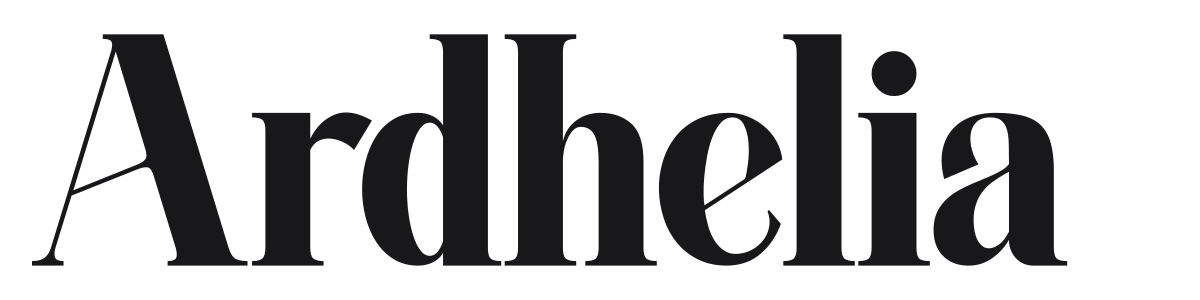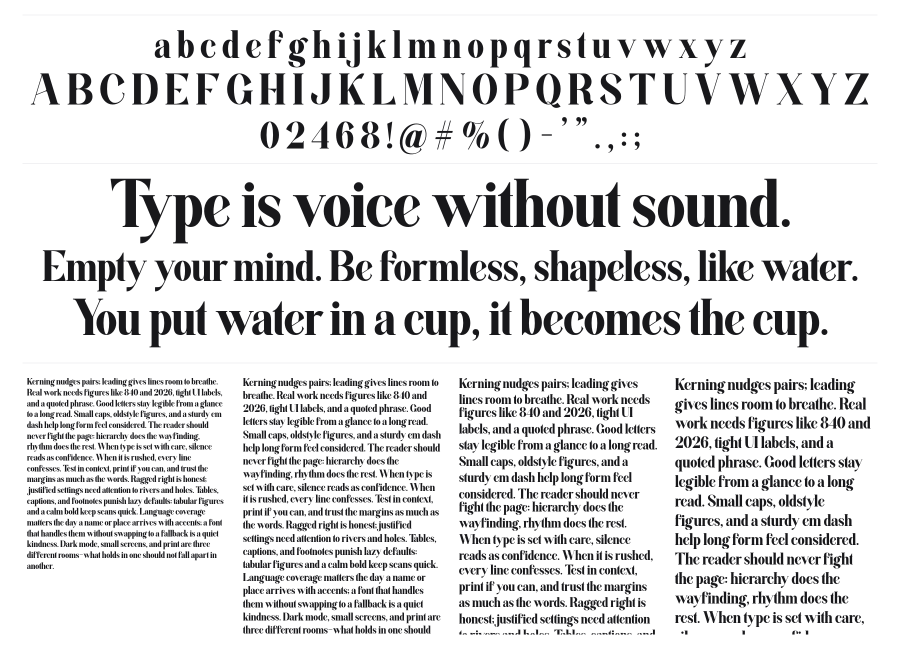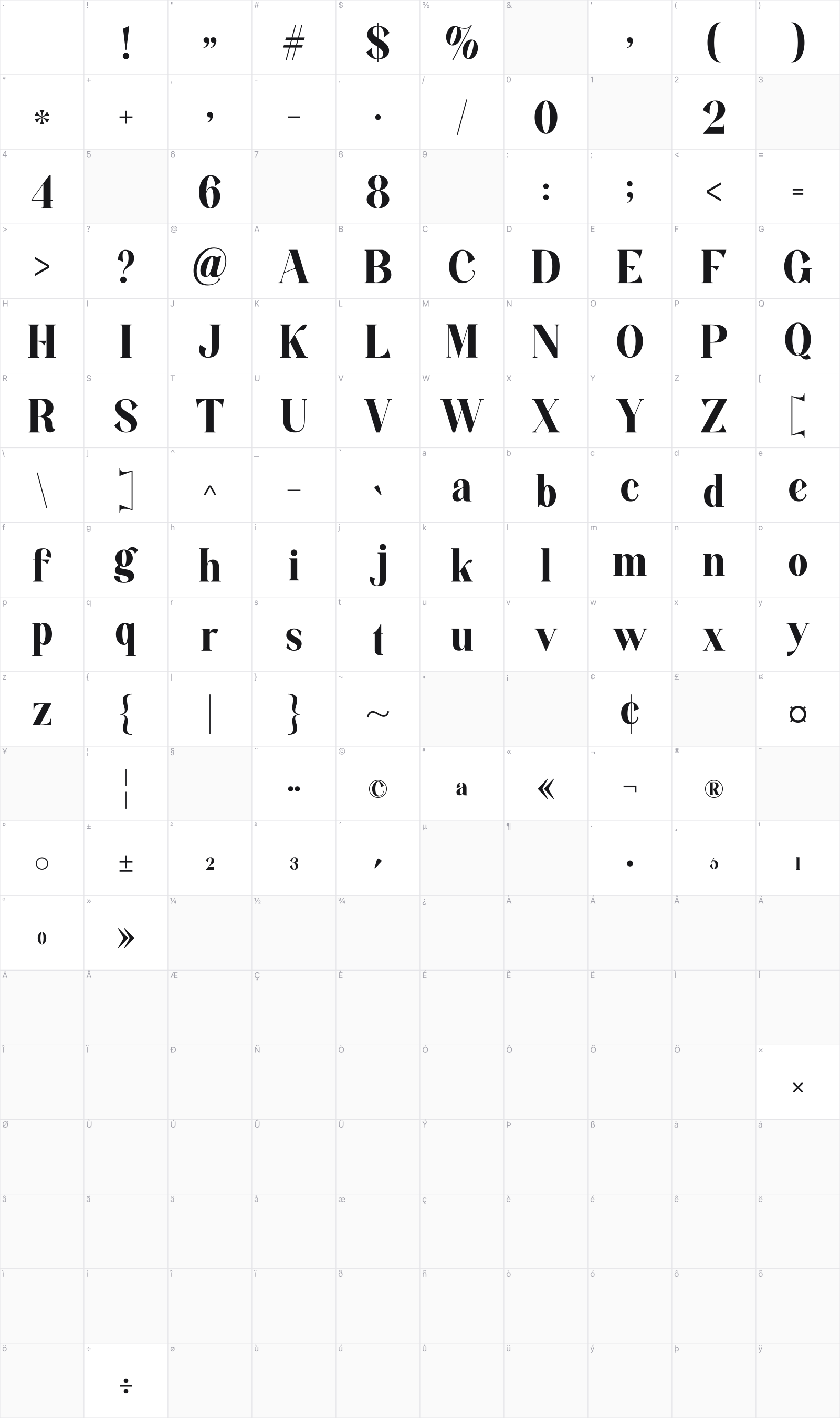
Ardhelia
Ardhelia is a bold Didone serif with extreme thick-thin stroke contrast and classic unbracketed hairline serifs. The heavy stems and near-hairline thins give it the commanding editorial presence associated with high fashion and luxury publishing. It works best large, where the contrast can breathe.